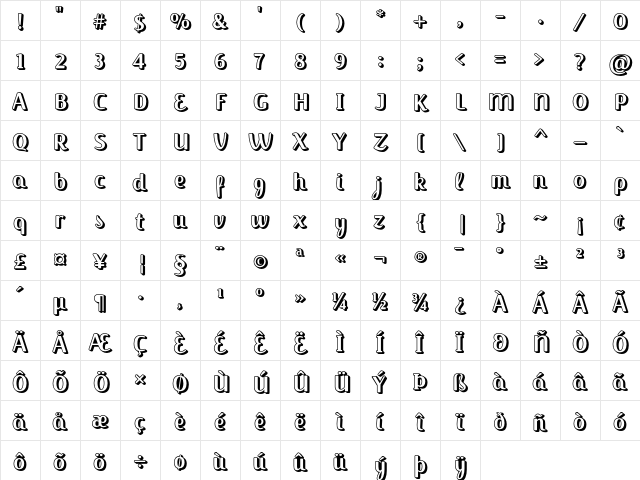
Jackie-Block Regular
Design Context for Jackie-Block Typeface
Jackie-Block is a composed and adaptable typeface that performs quietly and consistently across a wide range of design contexts.